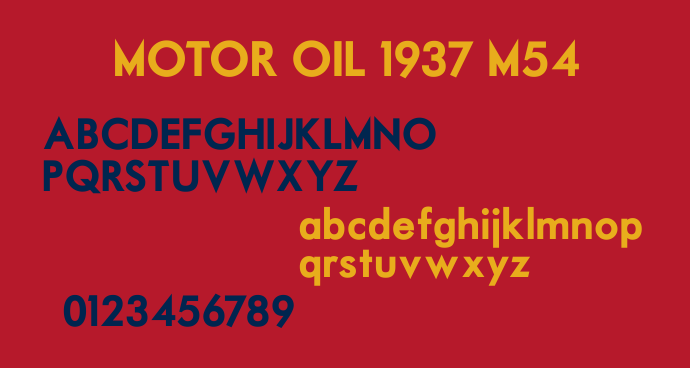
Preview and download Motor Oil 1937 M54 Font. Created by justme54s in Basic Sans serif styles with Free for personal use license.
Font inspired by vintage oil logos and some of the glyphs are based around Futura, especially the lower case letters. If you find this font useful then please consider a donation to justme54s[at]yahoo.co.uk, any amount will be greatly appreciated. A donation isn't necessary to use this font for personal or non-commercial use. I'll be interested to know how people use it so a picture or artwork sent to justme54s[at]yahoo.co.uk would be nice. If you wish to use this font commercially a donation or license is required, please email for further information. Alternatively, for one time commercial use just send details of usage along with your donation so that a return email can be sent as proof of rights to commercial usage. Usage Agreement You may not host this font anywhere online as it is hosted exclusively at FontSpace.com and Dafont.com. Any links for downloads should be directed to FontSpace or Dafont. You may share the font electronically but the Zip file should remain intact with the font alongside all other files as packaged. You may not sell this font, but are allowed to distribute it freely i.e. in magazines. |